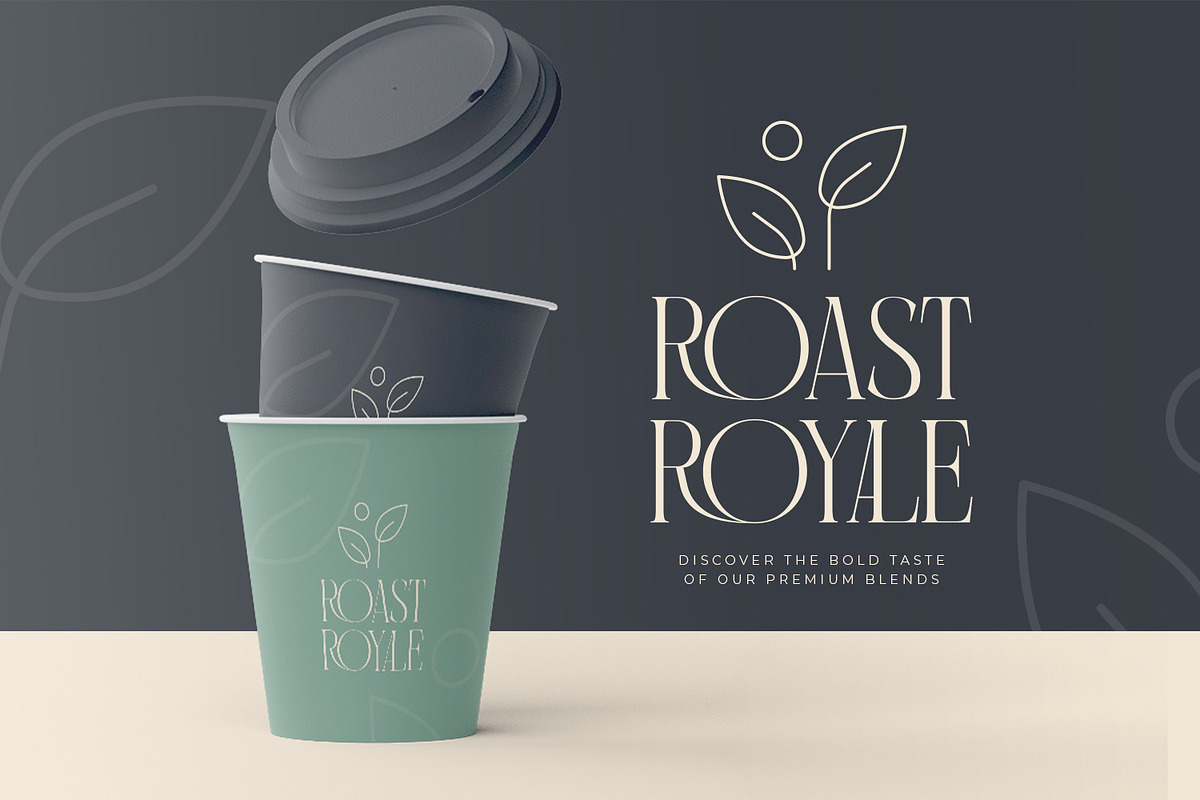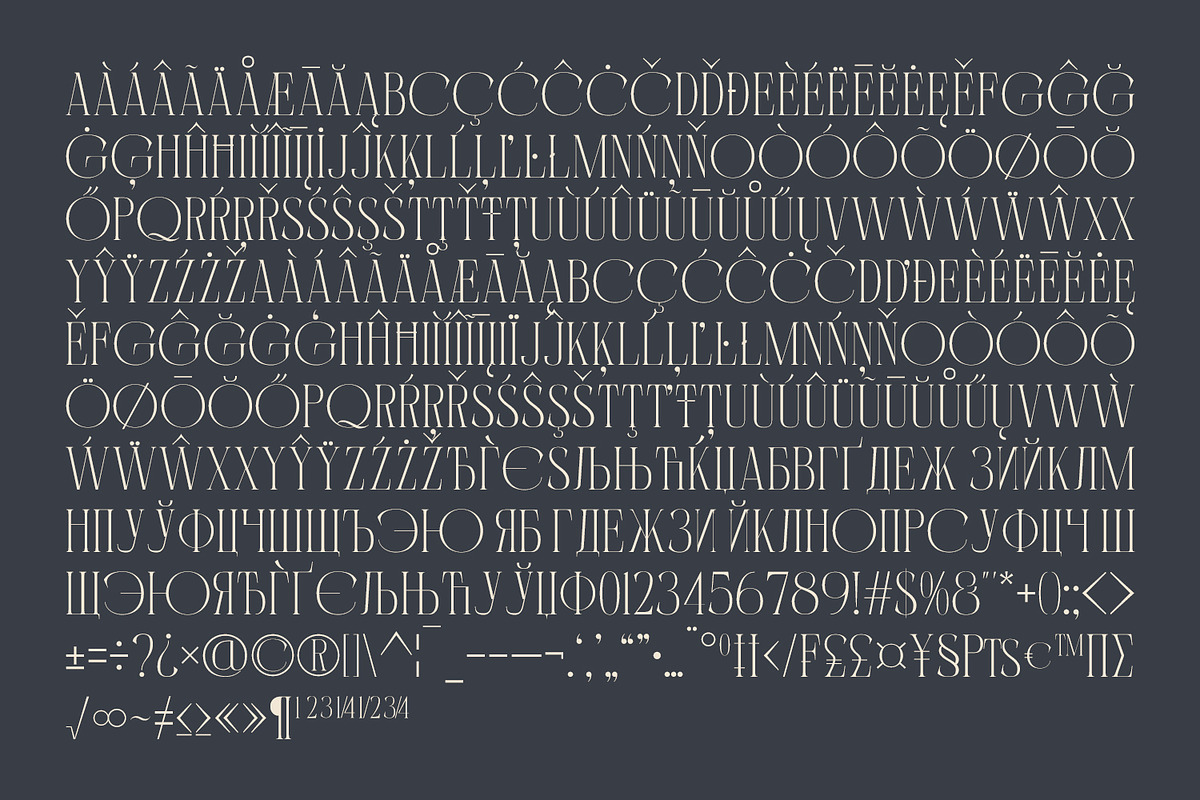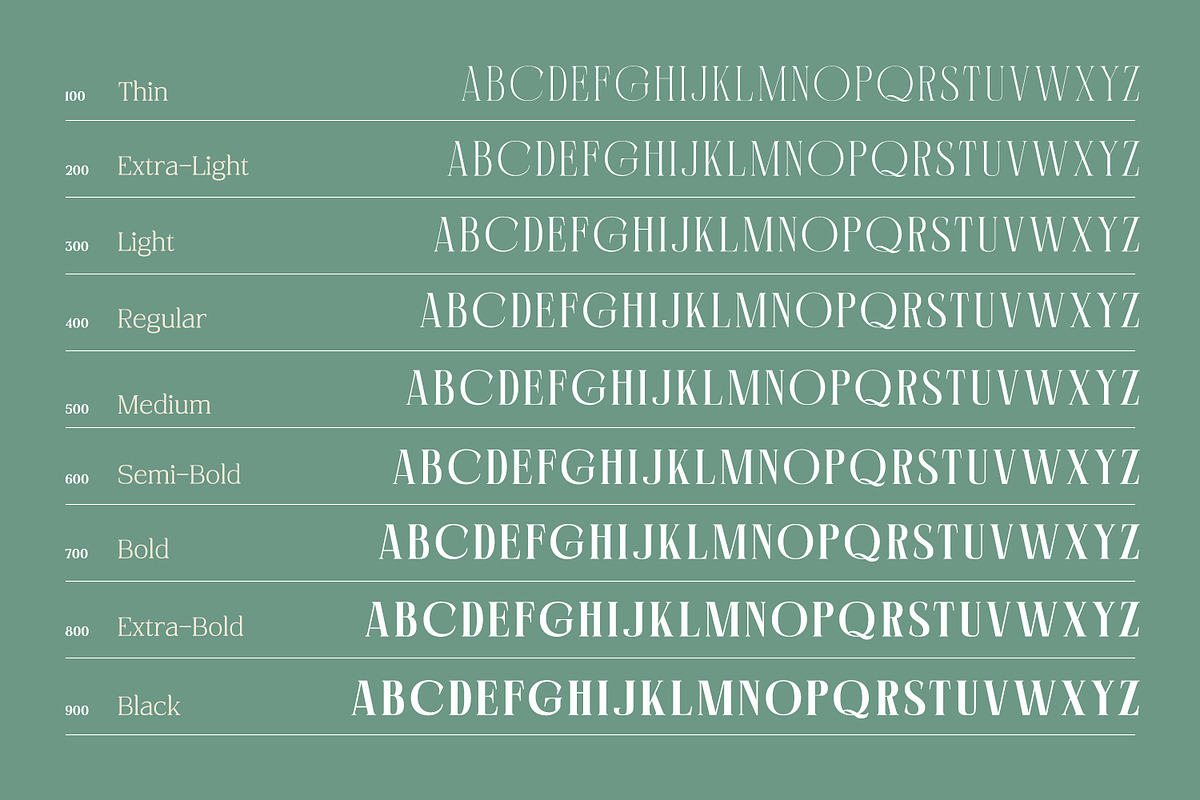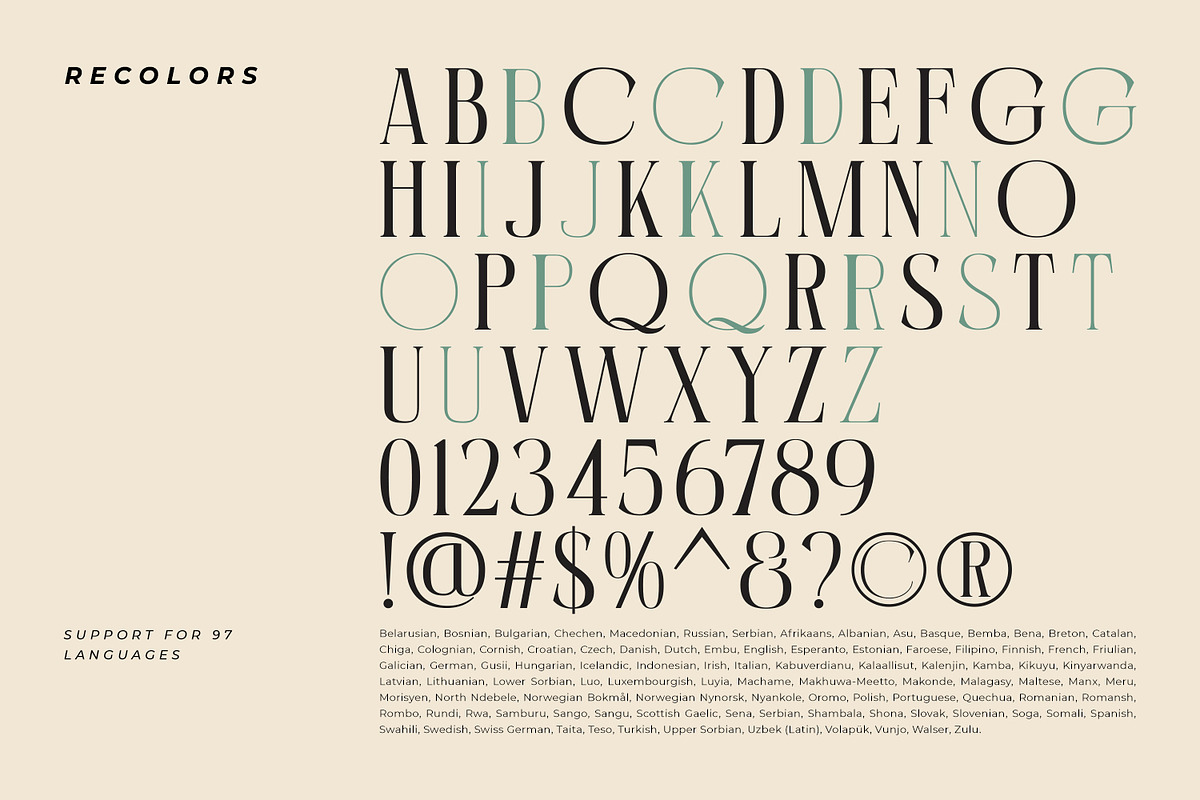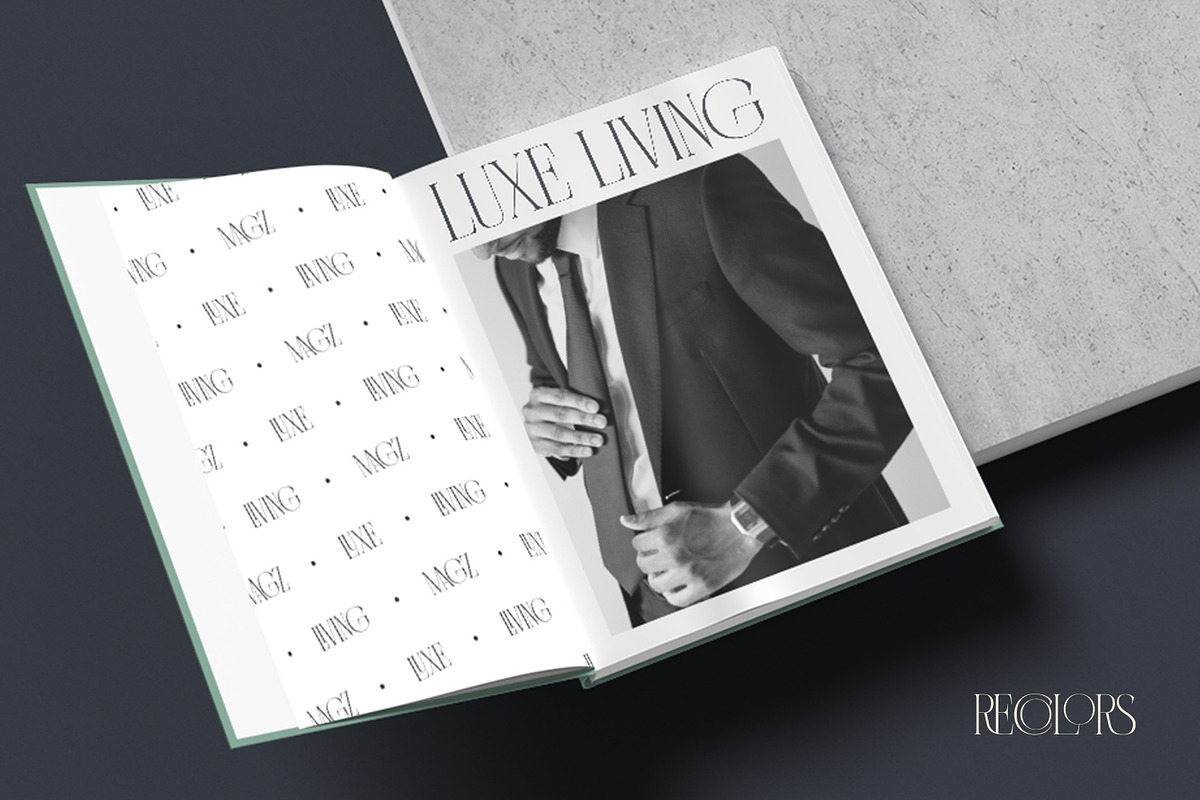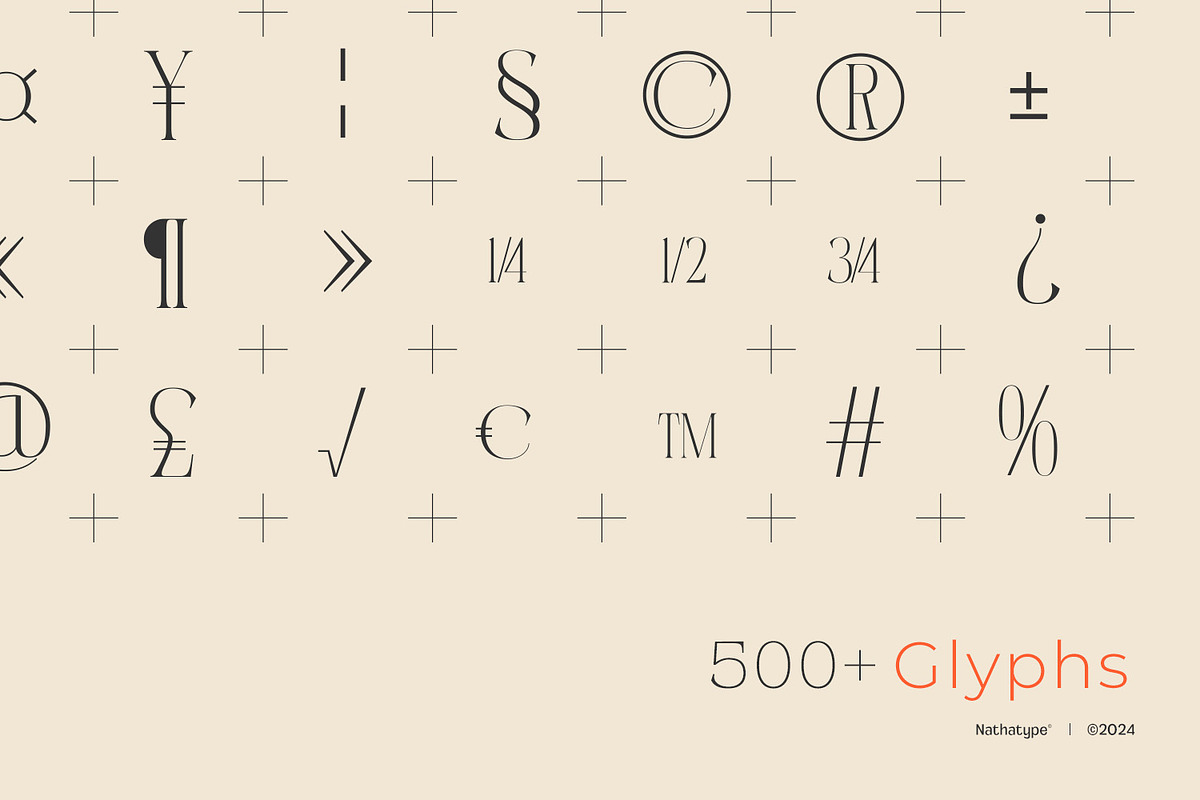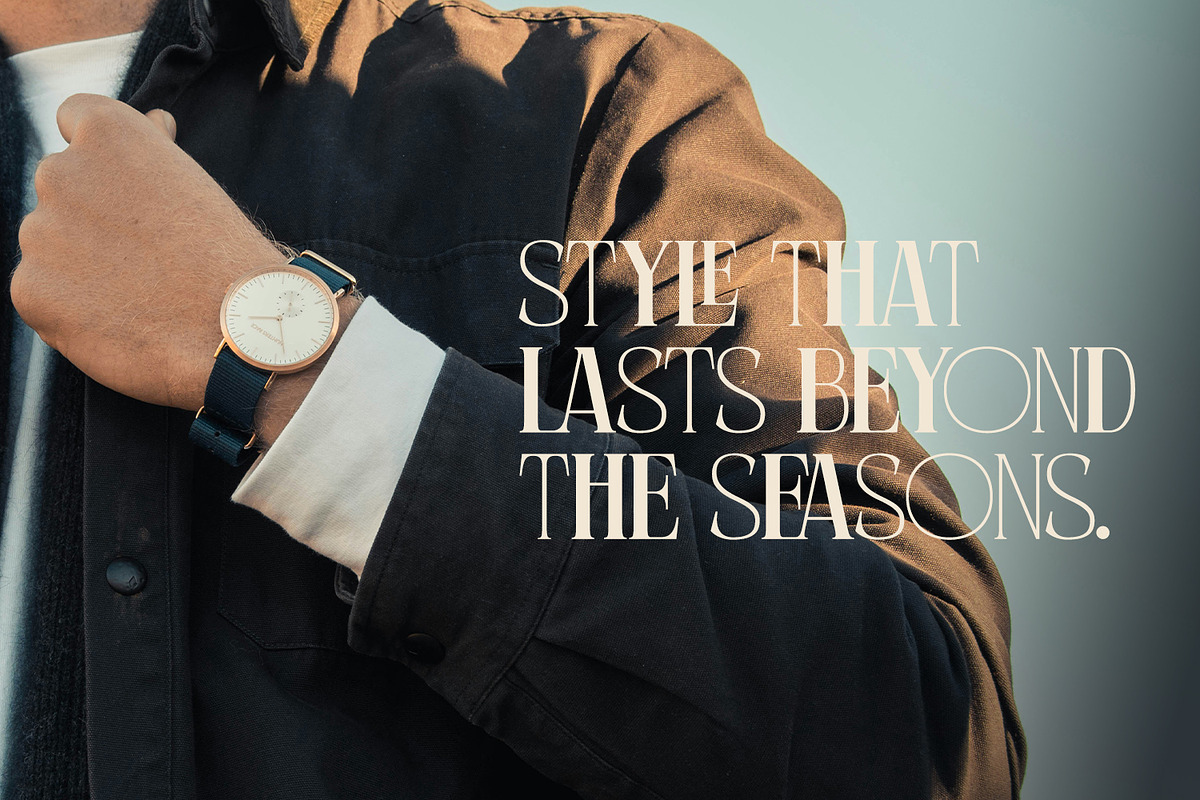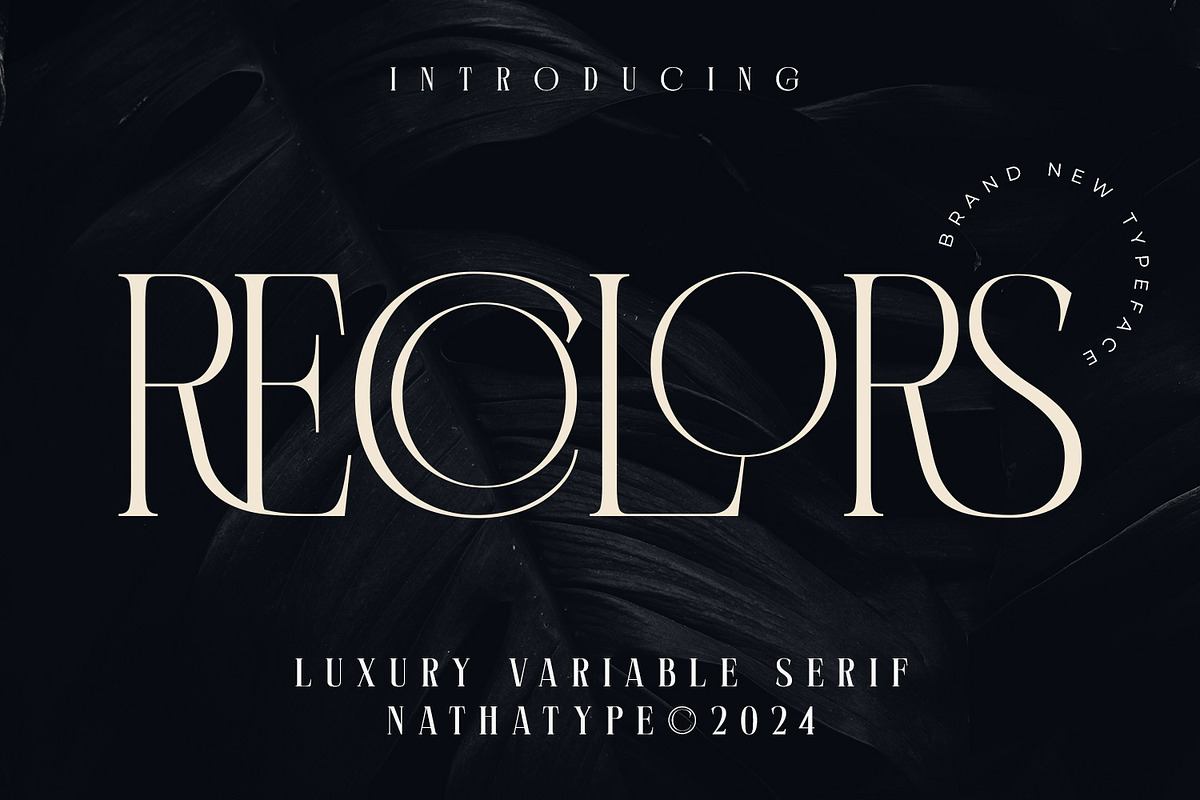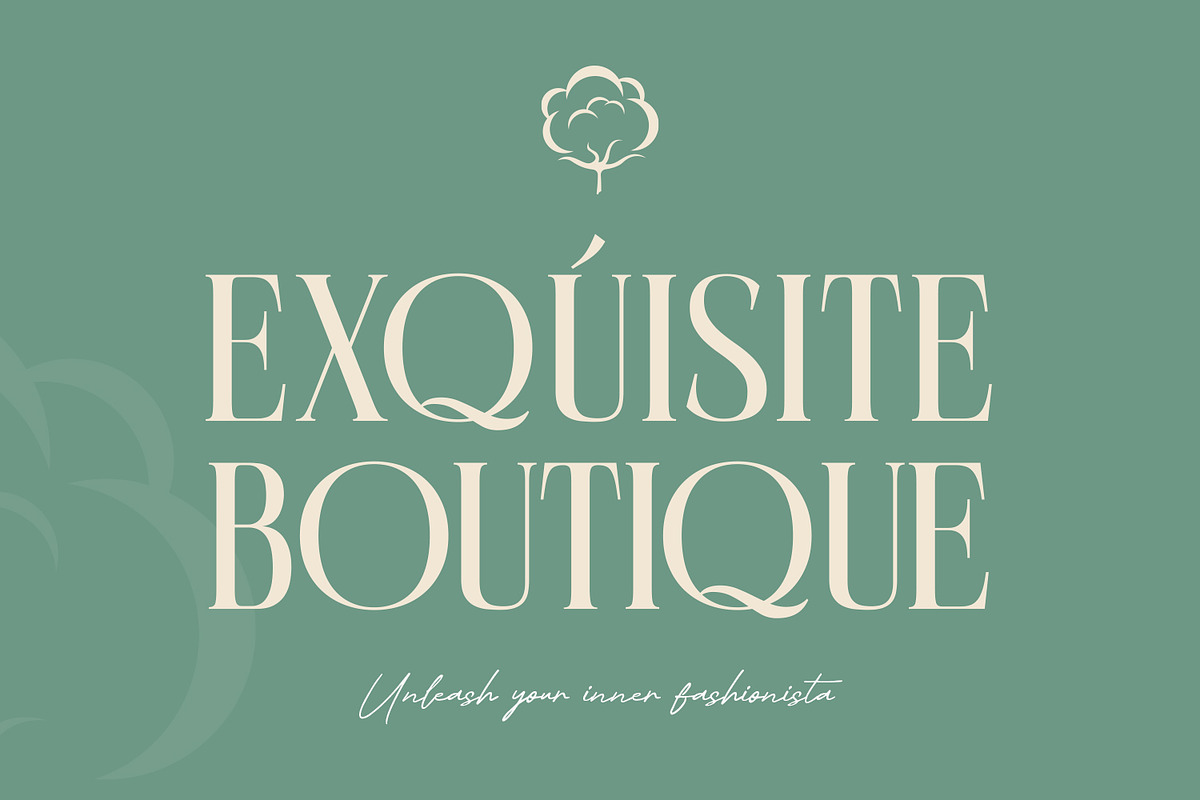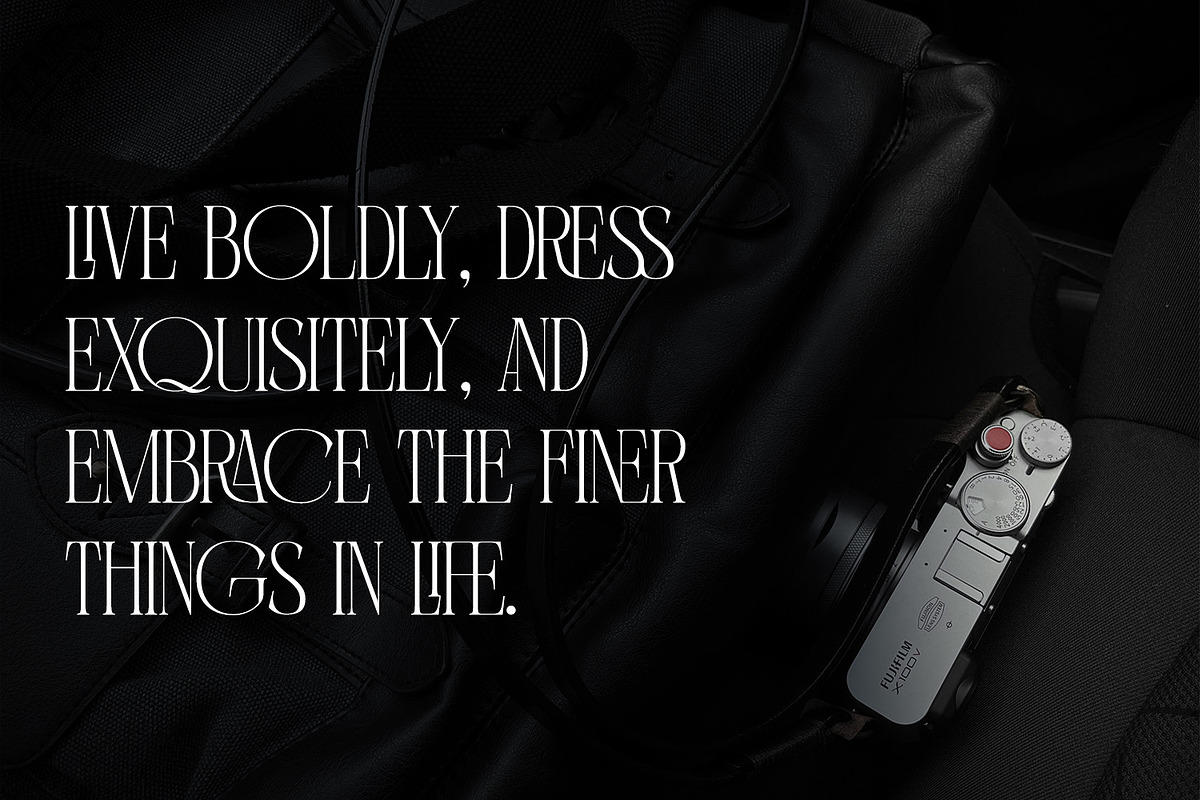
Recolors
It can be a time-consuming, difficult process to find an elegant font to present classic impressions to your audience despite the abundant options available for you. Moreover, it takes the risks to disappoint and to leave bad impressions to your audience without having the right font. Therefore, let us introduce you to our serif font, Recolors. It is a capitalized serif font to help you create elegant, classic nuances on your designs. Our serif font has tiny lines to add formal, professional touches on each quality, consistent letter to ease the reading process. However, such capitalized font designs are eligible to apply for big text sizes for a legibility reason. Additionally, you can enjoy the available features here.
Recolors fits best for various design projects, such as brandings, posters, banners, headings, magazine covers, quotes, printed products, merchandise, social media, etc. Find out more ways to use this font by taking a look at the font preview.